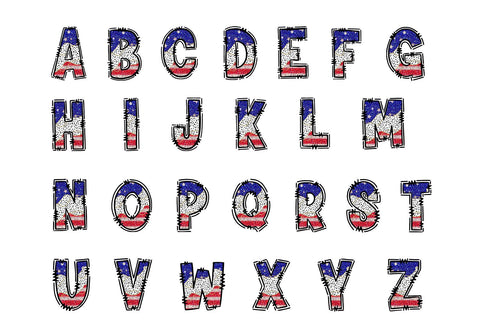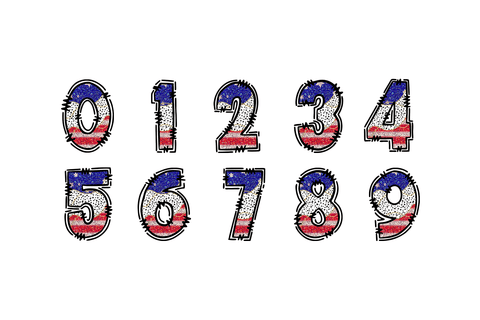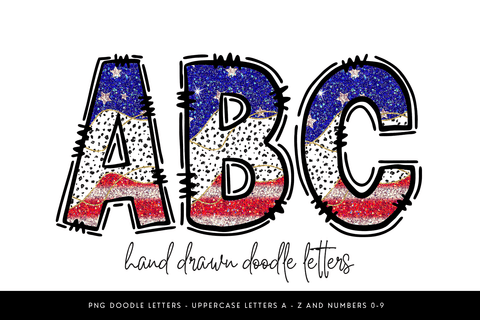
Patriotic Glitter Alphabet PNG, USA Doodle Letters Clipart
Sparkle big this summer with this red, white, and blue glitter doodle alphabet, featuring star-spangled overlays, cowprint texture, and bold sketch outlines. Perfect for Fourth of July crafts, Memorial Day shirts, patriotic tumblers, or USA-themed party decor. This high-res PNG alpha pack includes uppercase A–Z and numbers 0–9 for instant download and endless festive fun.
✦ Uppercase letters A-Z
✦ Numbers 0 - 9